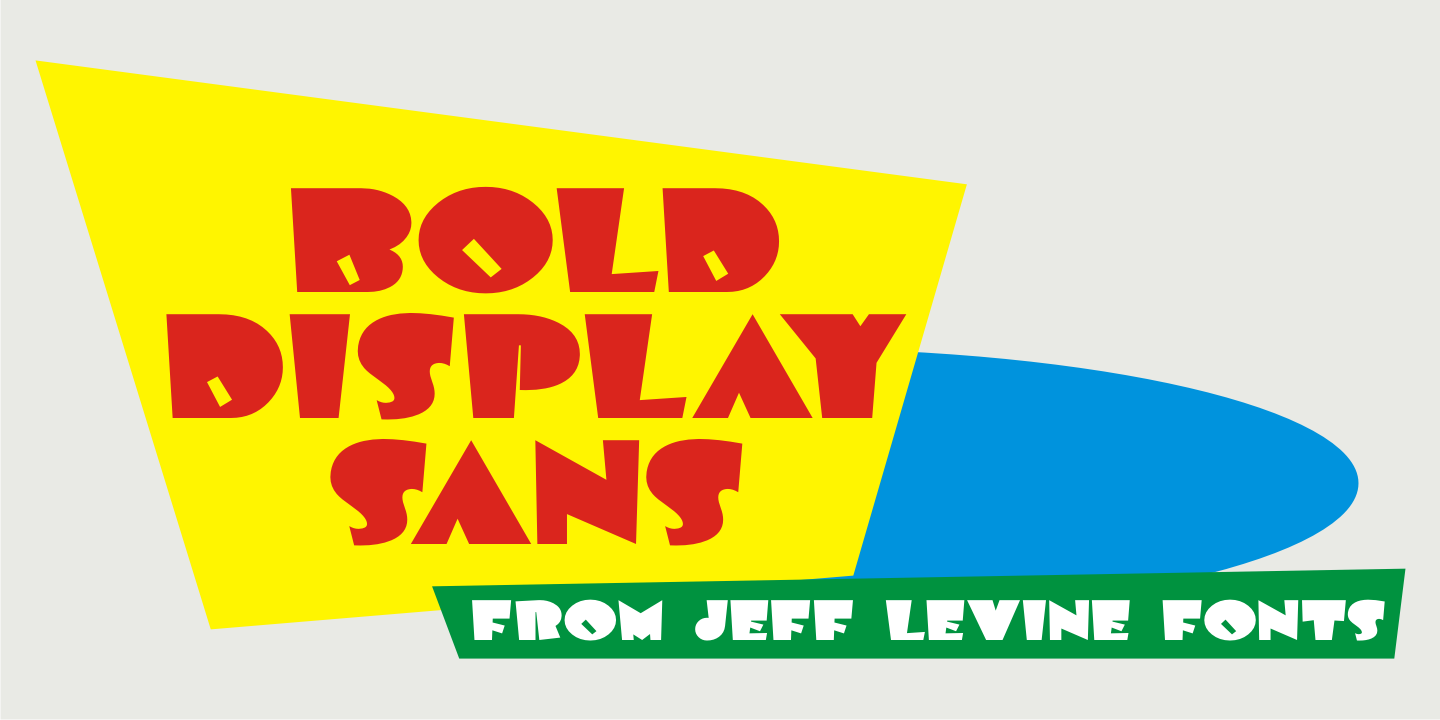
Bold Display Sans JNL is a art deco font published by Jeff Levine Fonts.
Bold Display Sans JNL is loosely based on one of the classic alphabets found within a Speedball Lettering Textbook of the 1940s; itself called “Bold Display”. The original featured a stippled texture and inline curves placed in random patterns throughout the letters.
This more simplified, all-caps version is for titling requirements where a strong, yet casual design is needed.